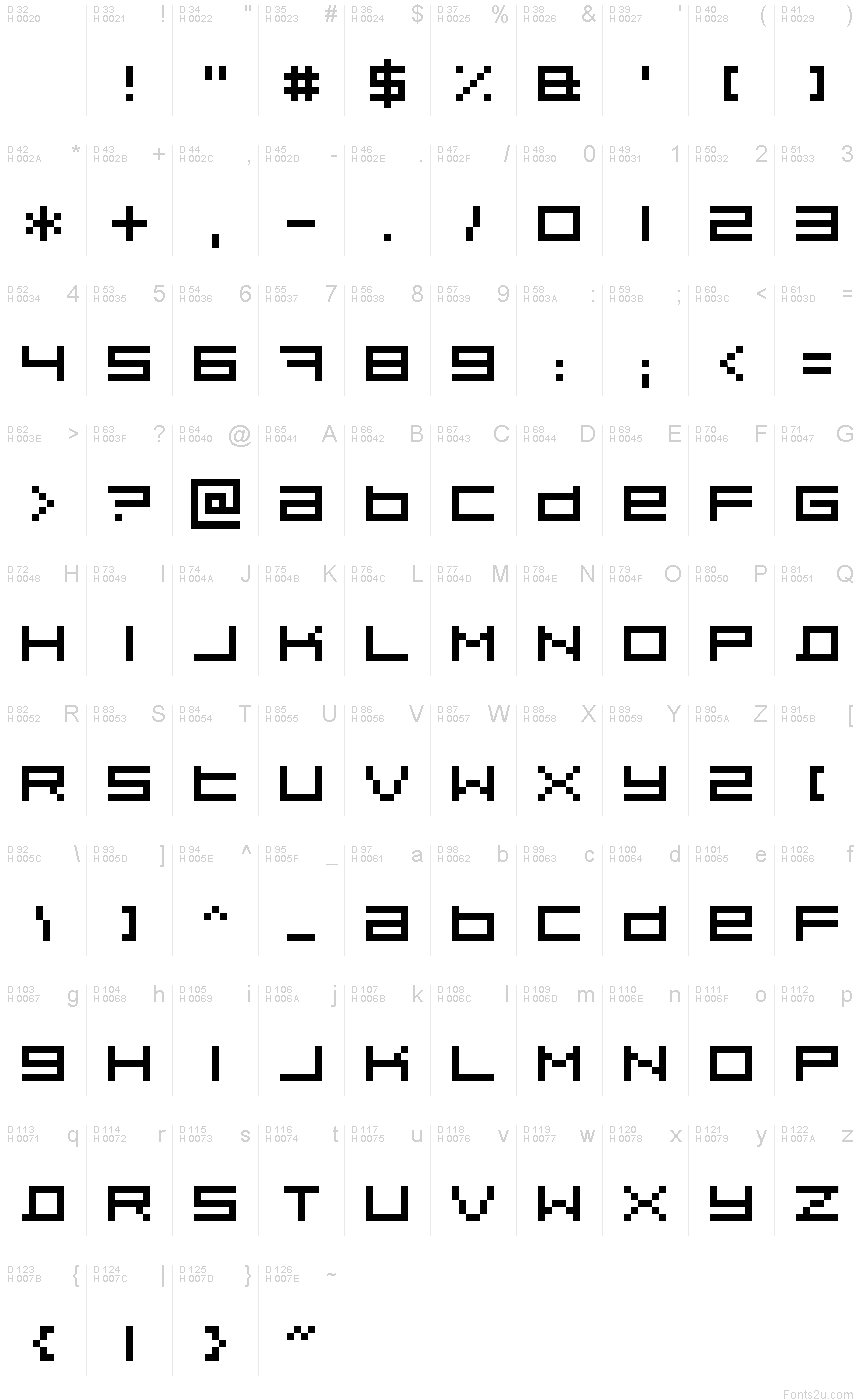
Pixeldust Expanded
Pixeldust Expanded by Andreas Nylin is a free bitmap font with a chunky arcade feel. The letters are built from big square pixels, but the repeated stepped corners and roomy gaps keep it from feeling blunt, giving the 2001 design a slightly playful, old-screen rhythm.
It fits naturally into retro game branding, poster titles, zine covers, flyer headers, and title cards where a blocky digital voice makes sense. As a free font, it also works for short monograms or logo experiments, because the expanded pixel shapes make even a few letters feel bold and graphic.